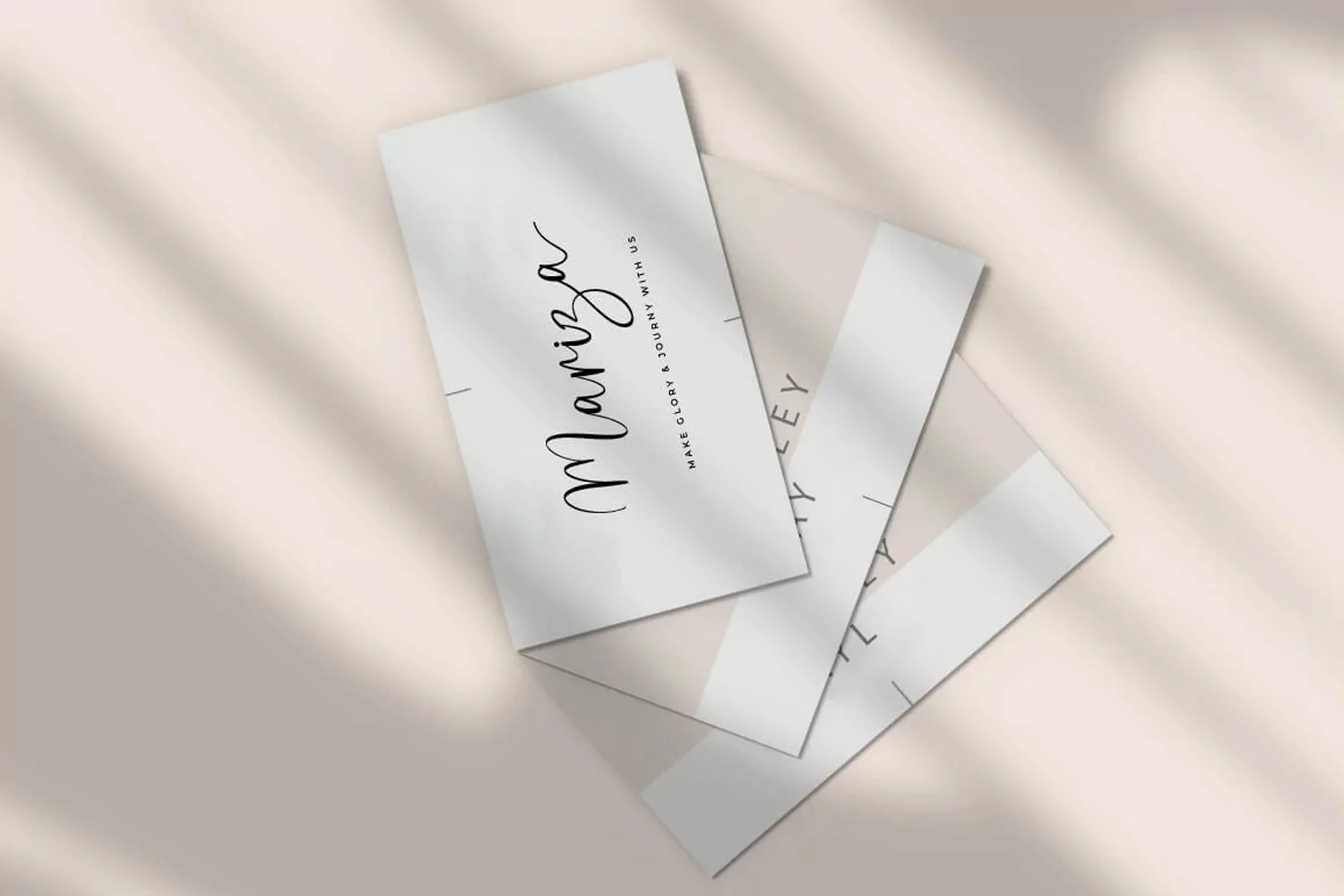
Suttimos - Handwritten Font
Suttimos Font feels equally charming and elegant. It looks stunning on wedding invitations, thank you cards, quotes, greeting cards, logos, business cards and every other design which needs a handwritten touch.
This font is PUA encoded which means you can access all of the glyphs and swashes with ease! It features a varying baseline, smooth lines, gorgeous glyphs and stunning alternates.
• Ton of glyphs
• Ligature & Alternate
• Fonts include multilingual support for; Afrikaans, Albanian, Czech, Danish, Dutch, English, Estonian, Finnish, French, German, Hungarian, Italian, Latvian, Lithuanian, Norwegian, Polish, Portuguese, Slovak, Slovenian, Spanish, Swedish.